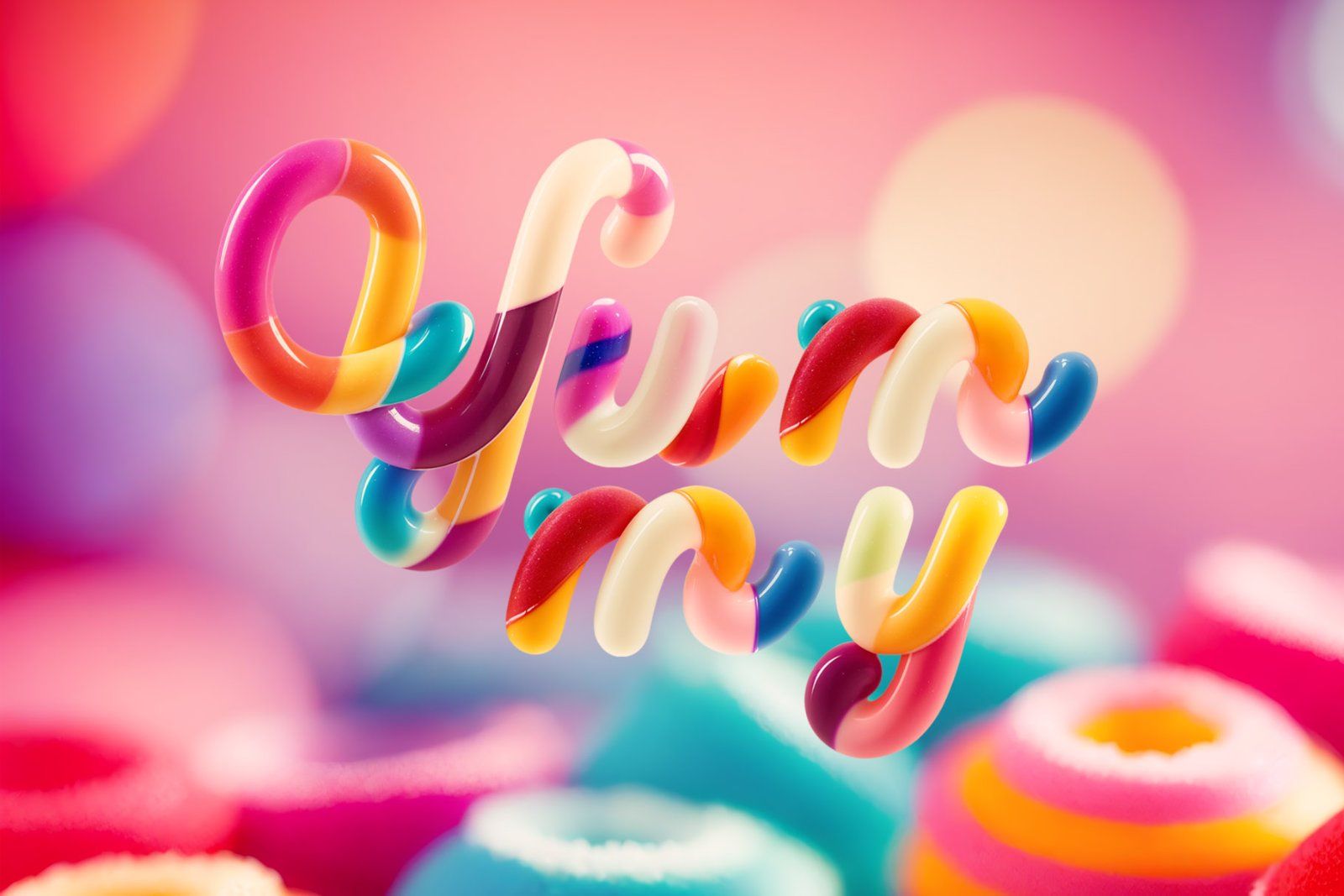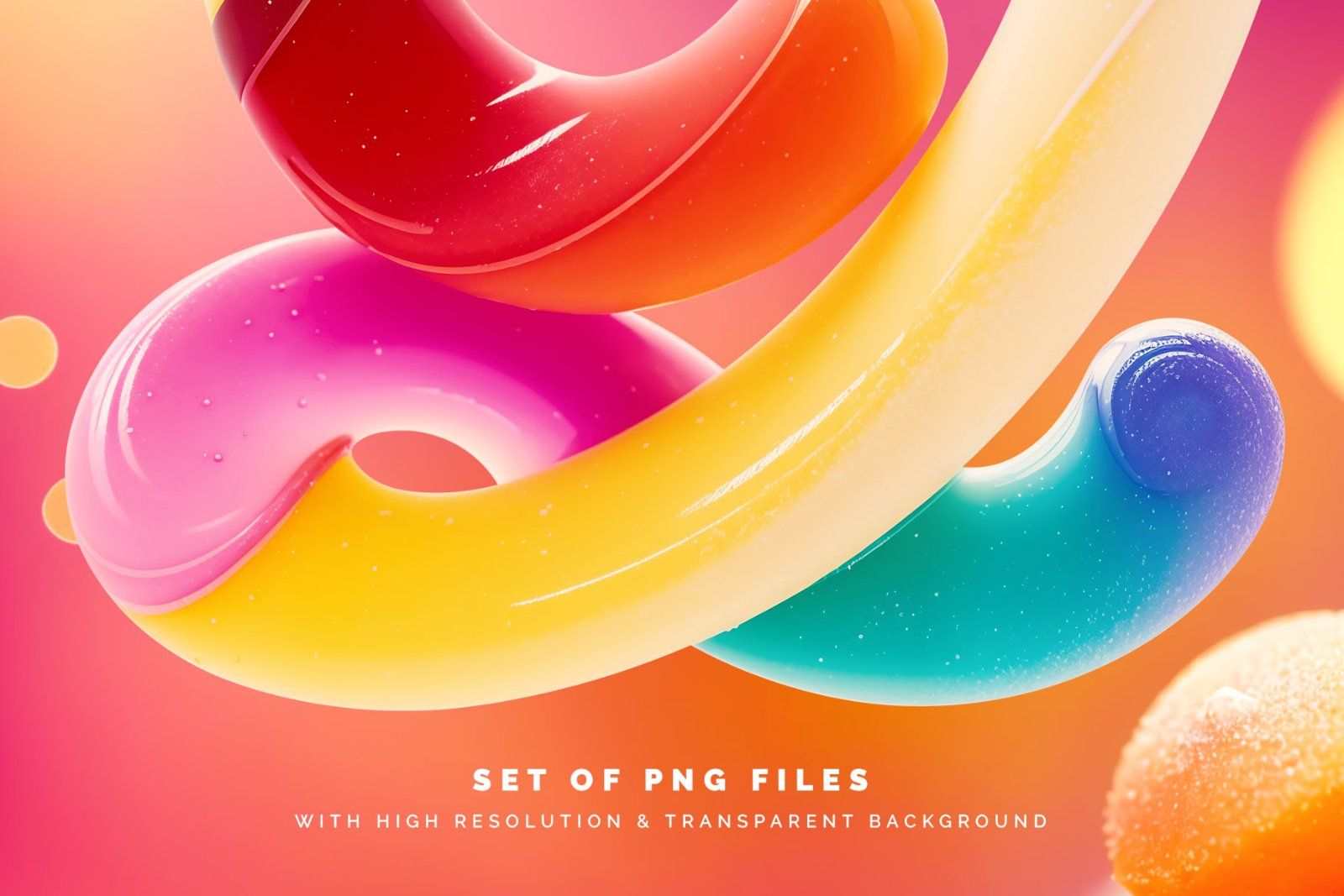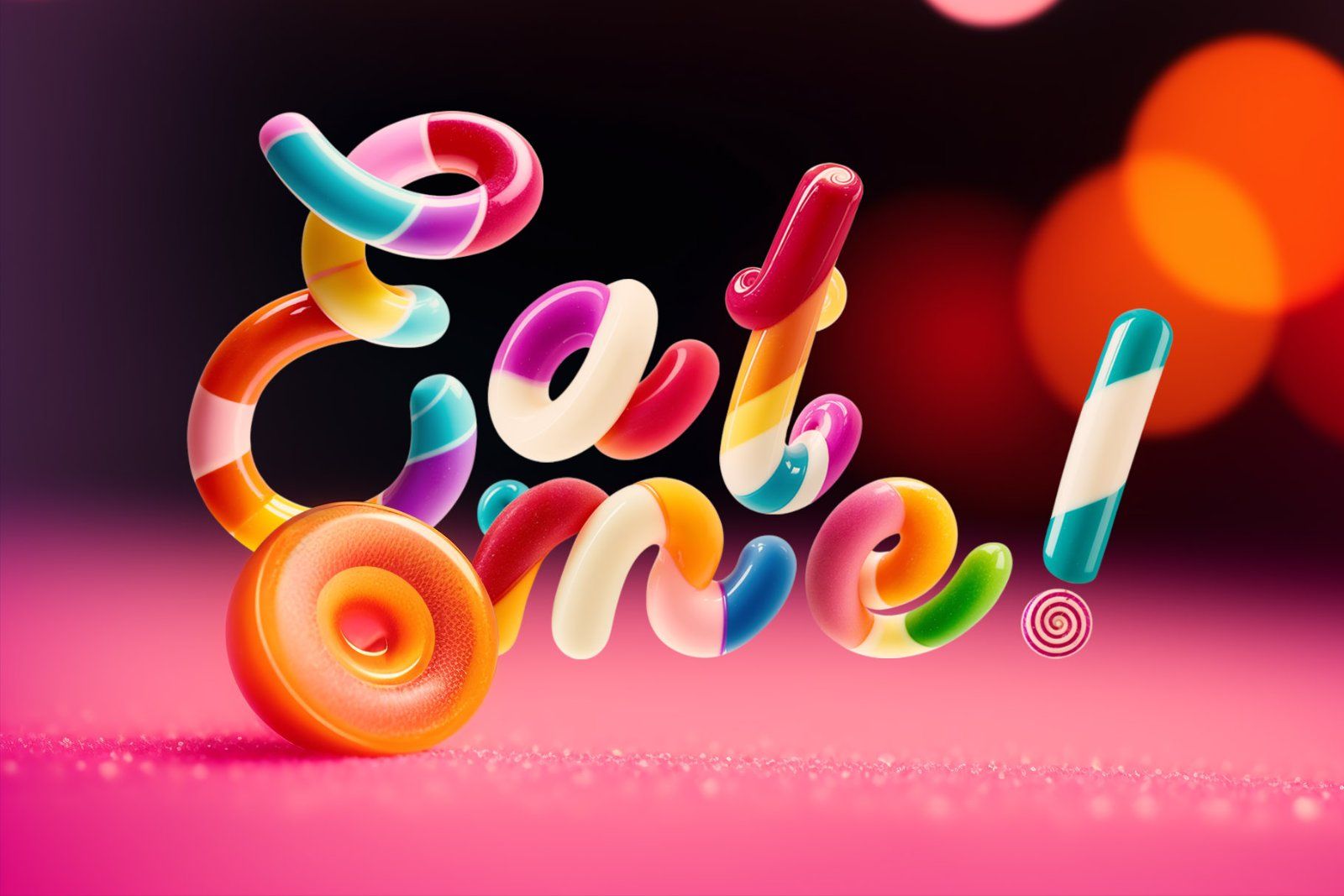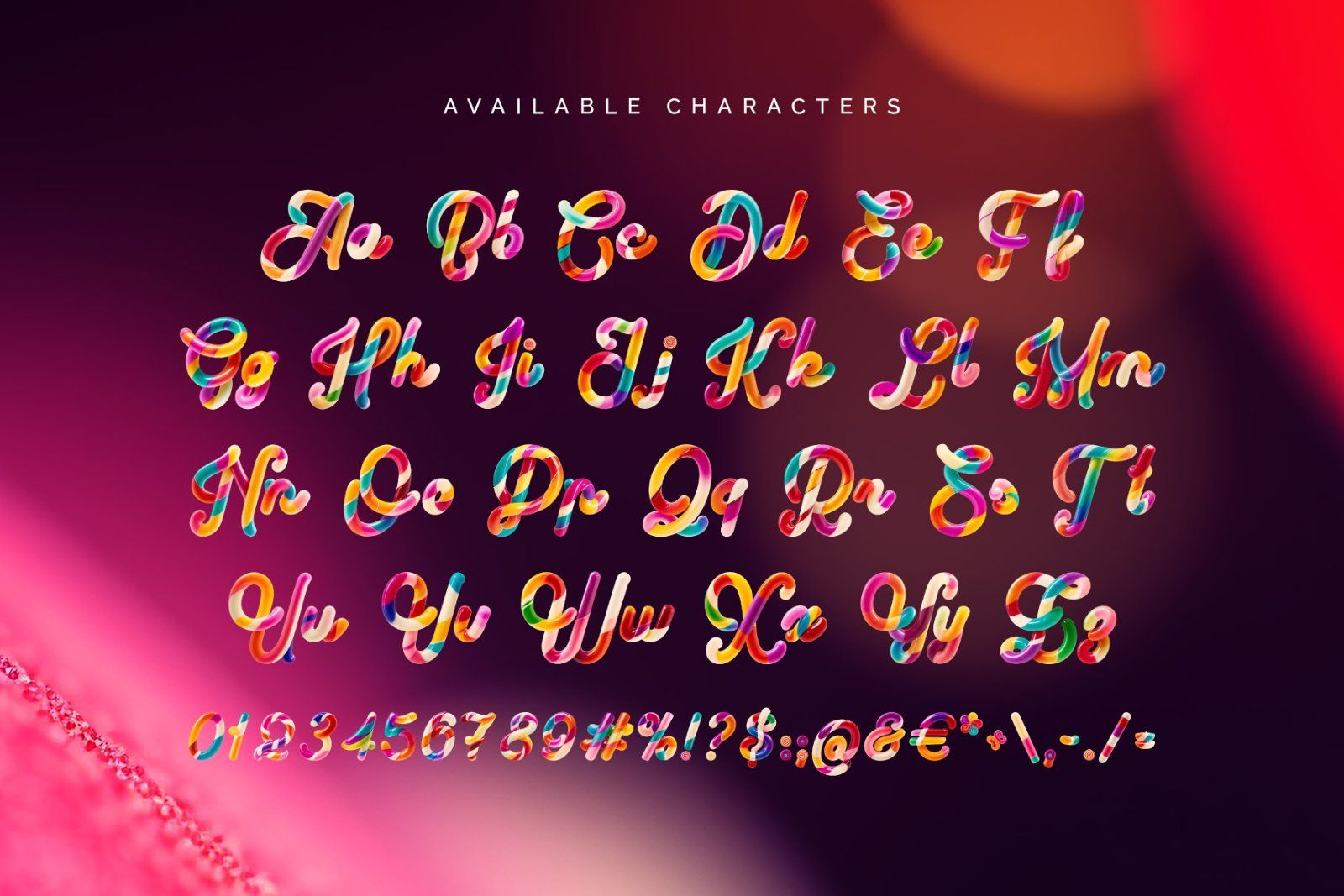
Hello! Presenting a sweet and tasty color font named Yummy Candy. This font was made using an amazing and trending nowadays Generative Ai technology. First of all, it's a color bitmap OpenType-SVG font that can be used as a usual OTF font. The resolution of a capital letters in OTF file is roughly 600 px height. An included PNG files with transparent background has around 3500 px height.
Please consider that only the English language and basic punctuation are available, please check out the screenshot with all existing characters. Also a fancy blurred background images are included.